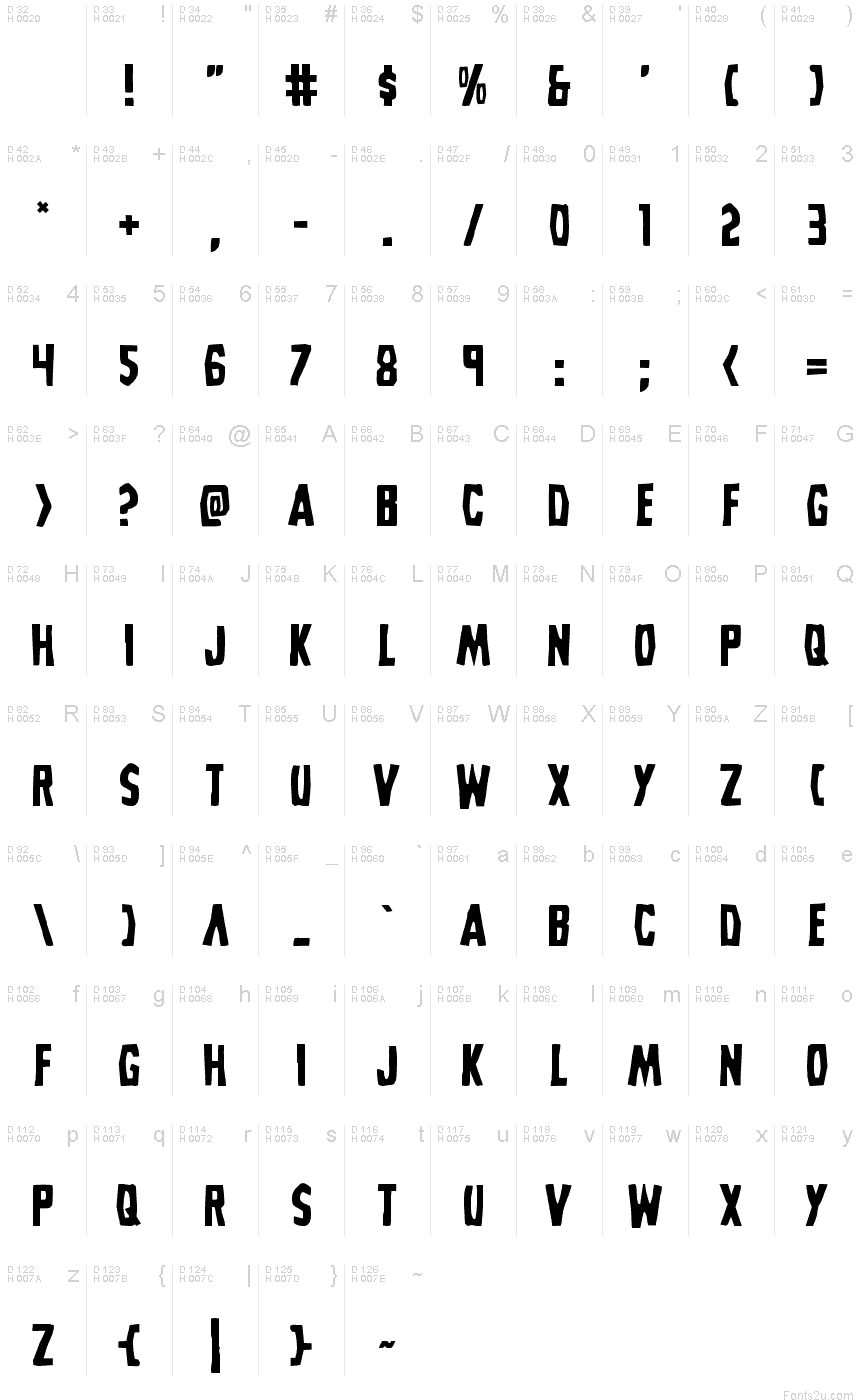
Grim Ghost, designed in 2011 by Iconian Fonts, is a free cartoon display font with tall letters and an uneven silhouette. Blunt edges and shifting stroke widths give the capitals a hand-cut, unruly look.
Ghost stories and comic horror suit its crooked shapes, making it a lively choice for Halloween posters and haunted-house signage. The exaggerated lettering fits monster-themed game graphics and novelty merchandise. On comic covers, it can become part of the illustrated action rather than neutral titling.
Grim Ghost includes a full character set and the euro symbol.